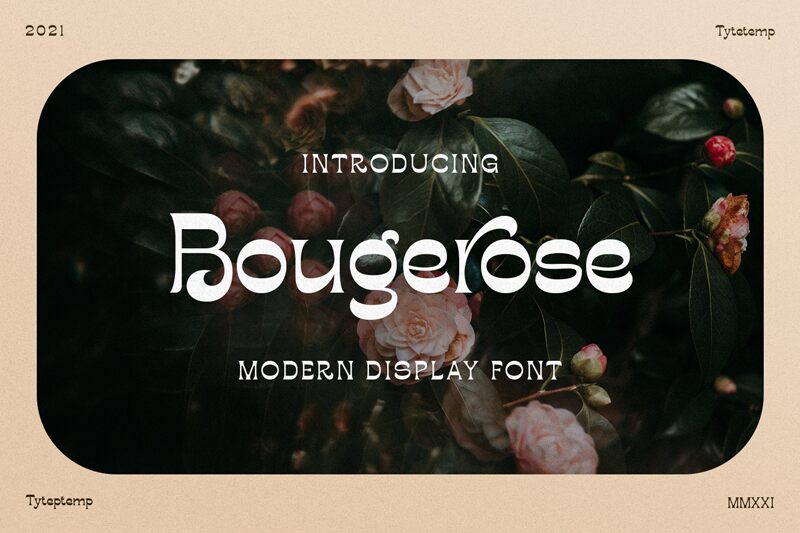
Bougerose Display, the retro font designed by Typetemp Studio, is a perfect fit for projects that require a vintage touch. With its unique and eye-catching retro style, Bougerose Display is the ideal font for branding projects, print designs, and even social media graphics. Its semi-bold typeface adds an extra level of sophistication to any project while its wide width ensures maximum readability. Whether you're designing a poster for a music event or working on packaging for a retro-inspired product, Bougerose Display will add that perfect touch of nostalgia and elegance to your work.
Bougerose Display